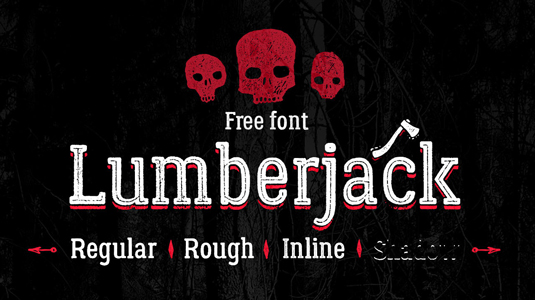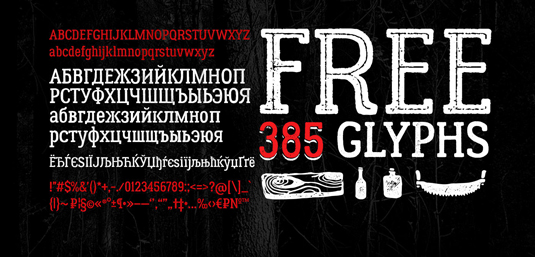
Font of the day: Lumberjack
Lumberjack by Aleksei Kalinin
Distressed typeface Lumberjack is the first font produced by designer Aleksei Kalinin. A bold design, Lumberjack is great for a variety of projects, headlines and poster in particular.